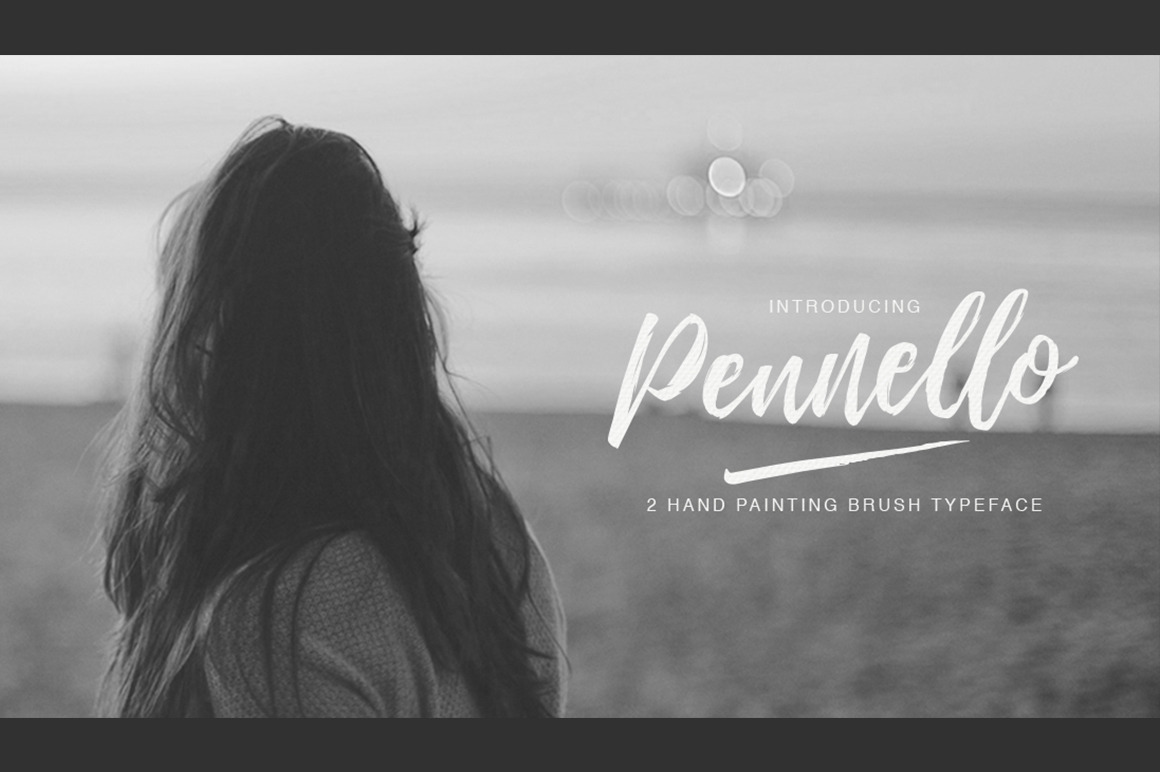
Pennello Script Font
Pennello Script Font is perfect for artistic branding, creative studios, handwritten logos, boutique signage, artisan product labels, elegant invitations, personal stationery, craft business materials, artistic portfolios, custom calligraphy projects, intimate greeting cards, and expressive social media graphics.
What makes Pennello Script Font exciting is its artistic authenticity that captures the fluid beauty of traditional brush lettering through expressive strokes that dance with creative energy and personal expression. This captivating typeface embodies the soul of artistic craftsmanship, combining the spontaneous flow of paintbrush movements with refined elegance that resonates with audiences seeking genuine creativity and handmade authenticity. The font's organic character and natural variations create immediate emotional connection while maintaining the legibility essential for professional applications. Its expressive personality makes it perfect for brands that want to communicate artistry, passion, and the irreplaceable value of human creativity in their visual communications.
The Pennello Script Font family includes regular and bold weights, featuring brush-style alternates, flowing ligatures, and artistic flourishes. The character set incorporates expressive numerals, painterly punctuation marks, and creative swashes that enhance the font's artistic character and provide designers with comprehensive script typography solutions for authentic brand expression.
Whether you're creating artistic brand identities, designing handcrafted marketing materials, or developing expressive communications, Pennello Script Font Free Download provides the creative authenticity your artistic projects require. This premium script font excels in applications where personal expression and creative authenticity are crucial for brand differentiation and emotional engagement with art-conscious audiences. The font's brush qualities work beautifully across packaging, signage, and digital applications, making it an essential tool for designers creating memorable artistic brand experiences. Creative businesses and artistic entrepreneurs choose this font for its ability to communicate genuine craftsmanship while maintaining professional appeal and commercial viability. The comprehensive character support includes international symbols, expanding its versatility for global artistic applications and multilingual creative communications. Professional designers appreciate its perfect balance of artistic expression and functional readability, ensuring projects remain both emotionally compelling and practically effective. When you incorporate this exceptional script font into your creative communications, you're selecting a typography solution that celebrates artistic heritage and personal expression, ensuring your brand connects with audiences seeking authentic creative experiences and handcrafted quality in today's mass-produced world while maintaining the artistic credibility essential for success in creative industries and artistic markets that value individual expression, traditional craftsmanship, and genuine creative passion.